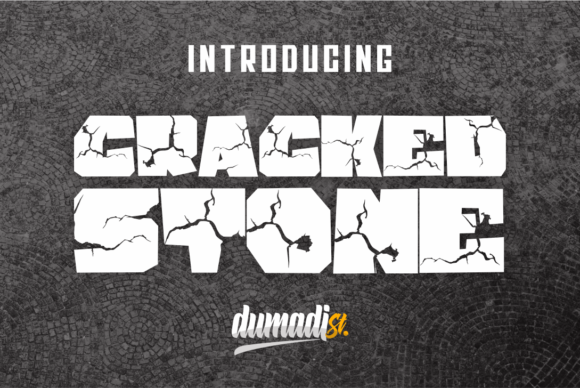
Welcome to the Cracked Stone Font Collection: Dare to Create a Shattered Masterpiece!
Dive into the realm of visual storytelling with the utterly unique and captivating Cracked Stone Font Collection. Unleash your creativity and leave a lasting impact on your audience with our distinct uppercase display font, meticulously crafted by the visionary font designer, DUMADI.
Conjure worlds of intrigue and mystery, sending shivers down your readers' spines with every haunting glyph. This font is more than just a collection of letters; it's an artistic enigma that oozes character and depth. Imagine your next horror project adorned with this font's rugged charm, leaving your audience spellbound.
We understand that your projects are not just creations—they're extensions of your soul. That's why we've meticulously designed the Cracked Stone Font Collection to be as versatile as your imagination. Its inherent power lies in its adaptability—whether you're crafting enthralling logos, eye-catching posters, or riveting book covers, this font has you covered.
Step into the abyss of creativity and let your words dance upon the cracked and shattered surfaces of the Cracked Stone Font Collection. Each character is a testament to the font's exceptional artistry, alluringly rough around the edges with a raw energy that's impossible to ignore.
Don't let your projects be mundane and forgettable. Embrace the power of the Cracked Stone Font Collection and watch your creations transform into captivating works of art.